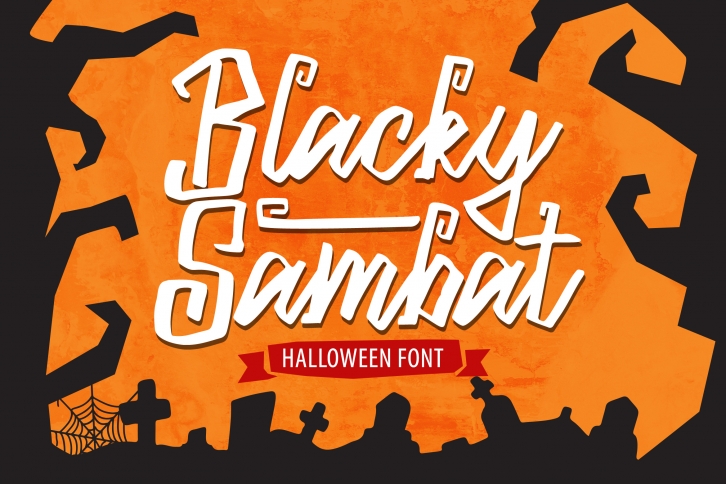
Blacky Sambat is a gorgeous font that was realeased on September 9, 2019. The font can be used in many style contexts and design environments. Perfect for invitations, magazines, websites, logos, and more! It was designed by Weape Design and the file size is 17.46 MB. Thanks for checking out this font!